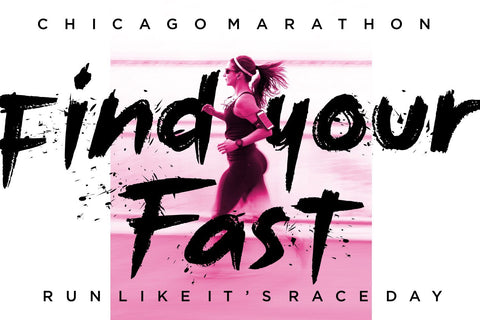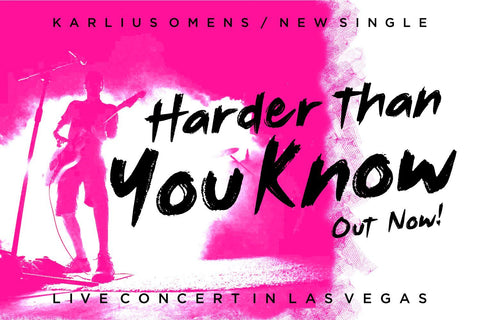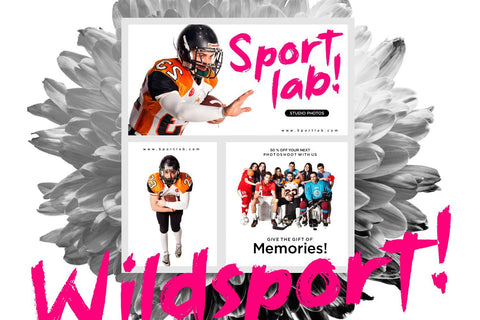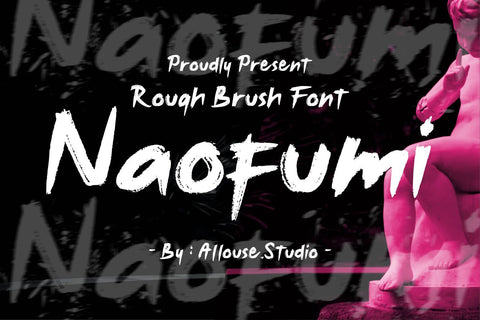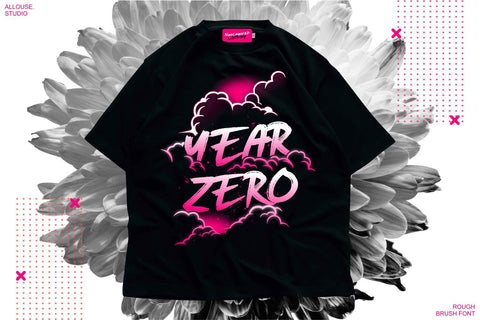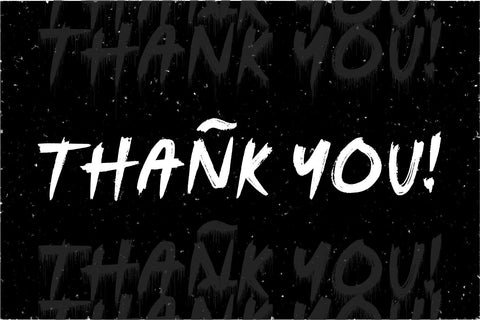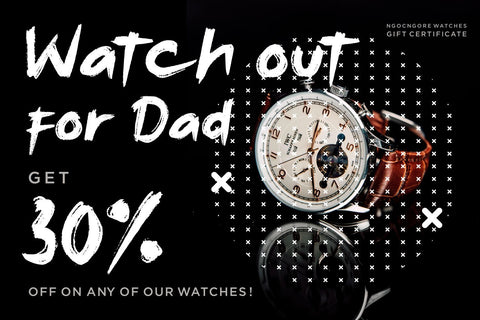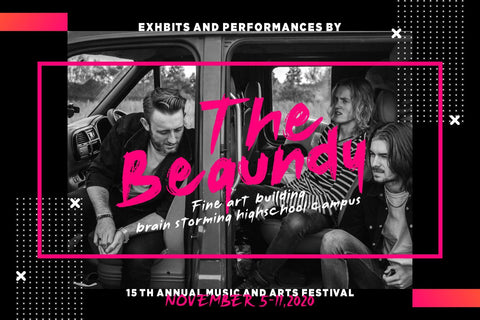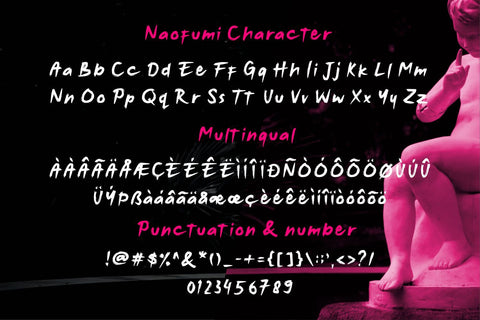
Naofumi - Rough Bruhs Font
Proudly Present, Naoufumi a Rough Brush Font.
Naofumi come along with Multi-Lingual Support to fulfill your need.
Naoufumi is perfect for any tittle, product packaging, branding project, megazine, social media, wedding, or just used to express words above the background.